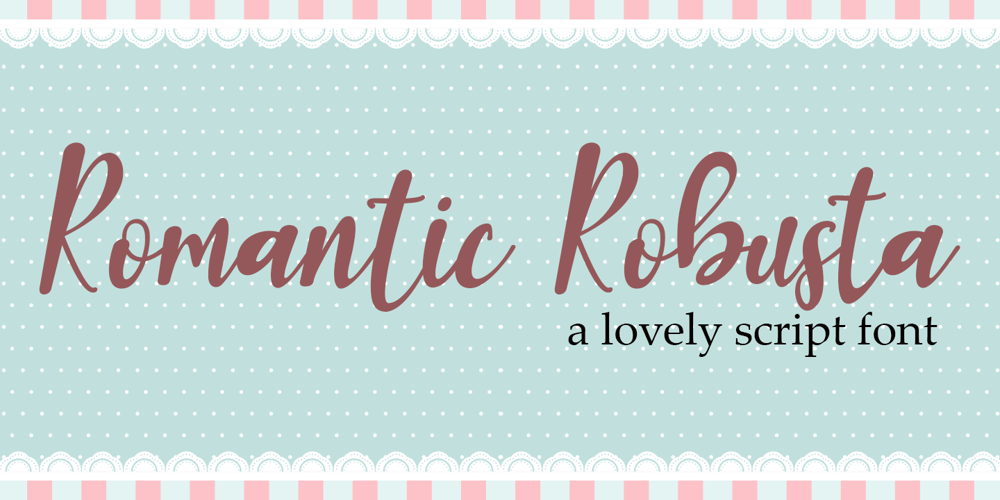
Romantic Robusta
Romantic Robusta font
Romantic Robusta Font Family was designed by Arief Tri Sulistiyono and published by Supersemarletter. Romantic Robusta contains 1 styles and family package options. Romantic Robusta is a flowing handwritten font, described by an elegant touch. It is perfect for your favorite projects. Fall in love with its incredibly distinct and timeless style and use it to create spectacular designs! This font is PUA encoded which means you can access all of the glyphs and swashes with ease!Font Features :• Regular version• Character set A-Z in uppercase and lowercase• Ligatures in Lowercase and special• Alternates option• Numerals & Punctuation• Accented Characters• Multiple Languages SupportedRecommended to use in Adobe Illustrator or Adobe Photoshop with opentype feature.If you have questions, just send me a message and I’m glad to help.Best Regards,Supersemar Letter